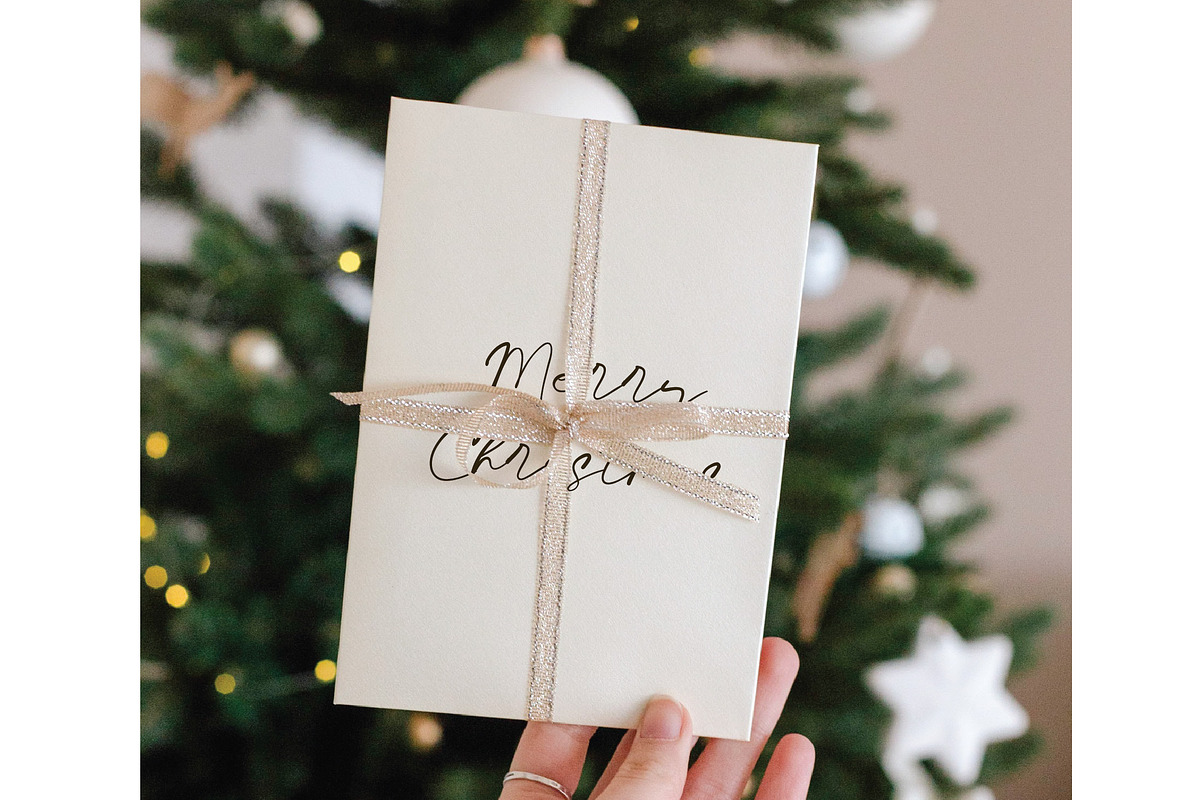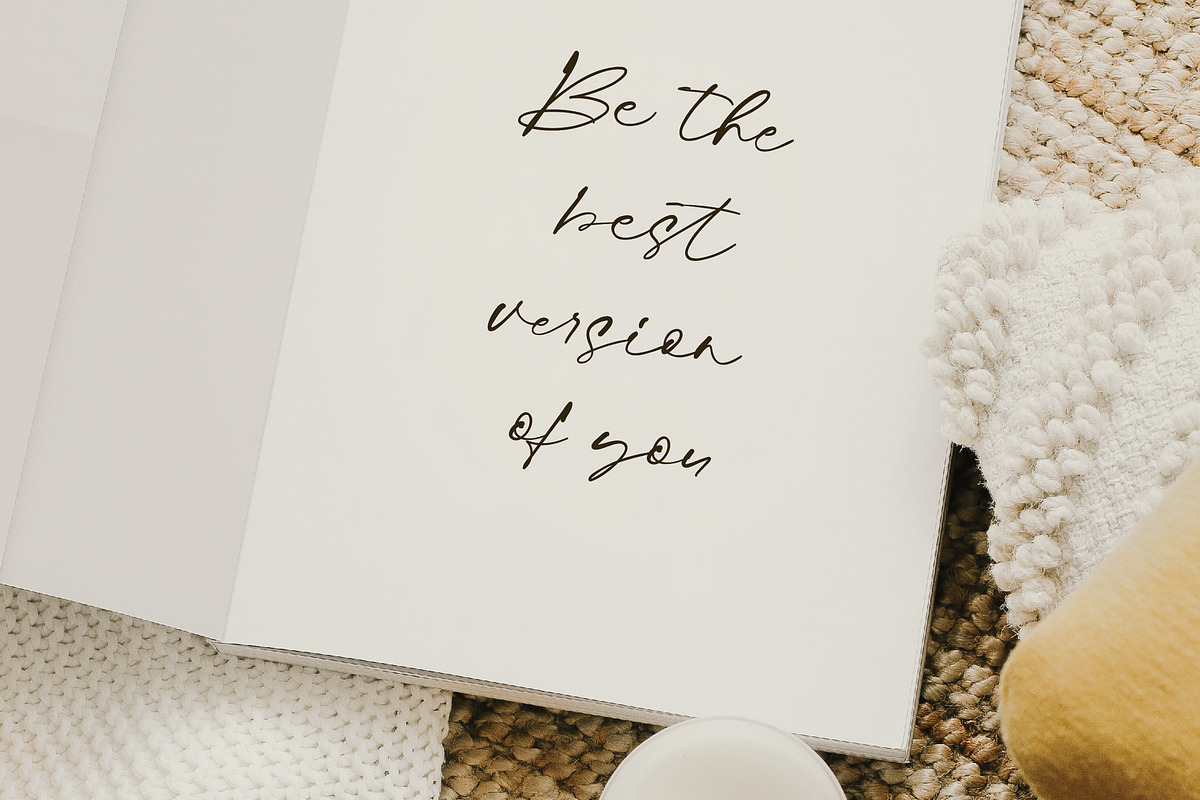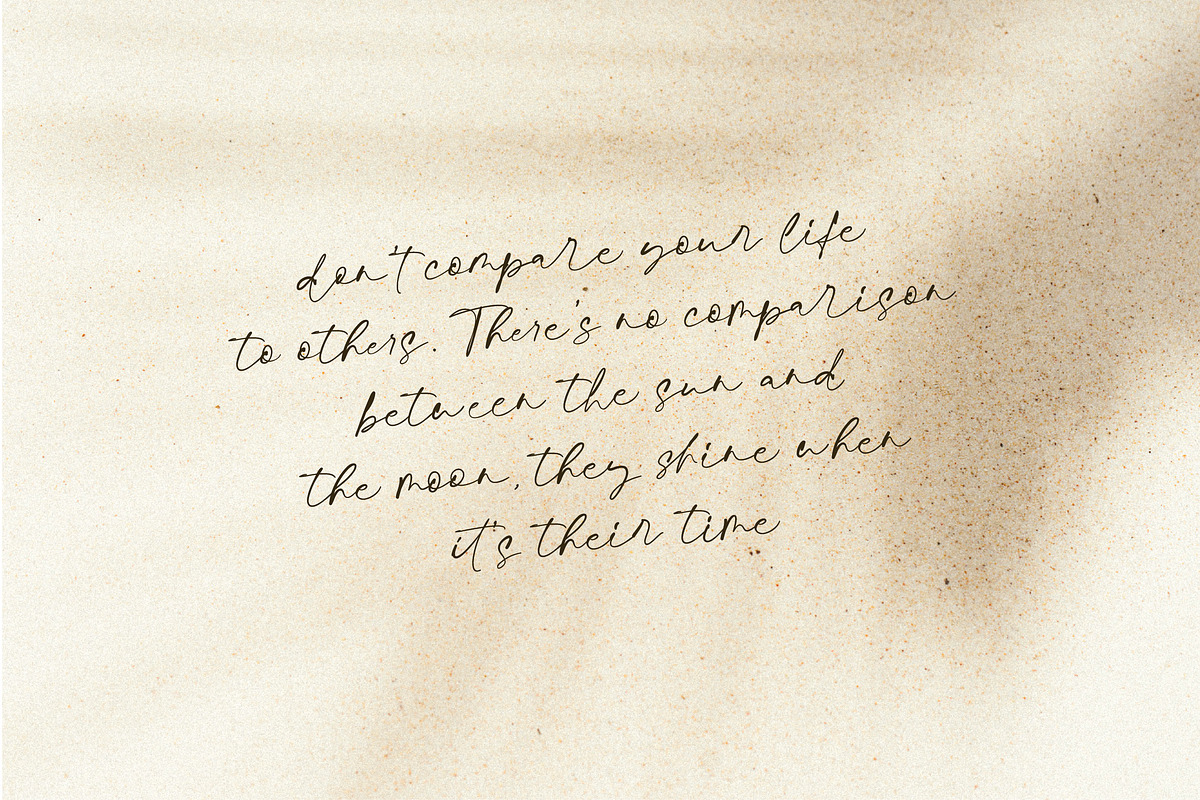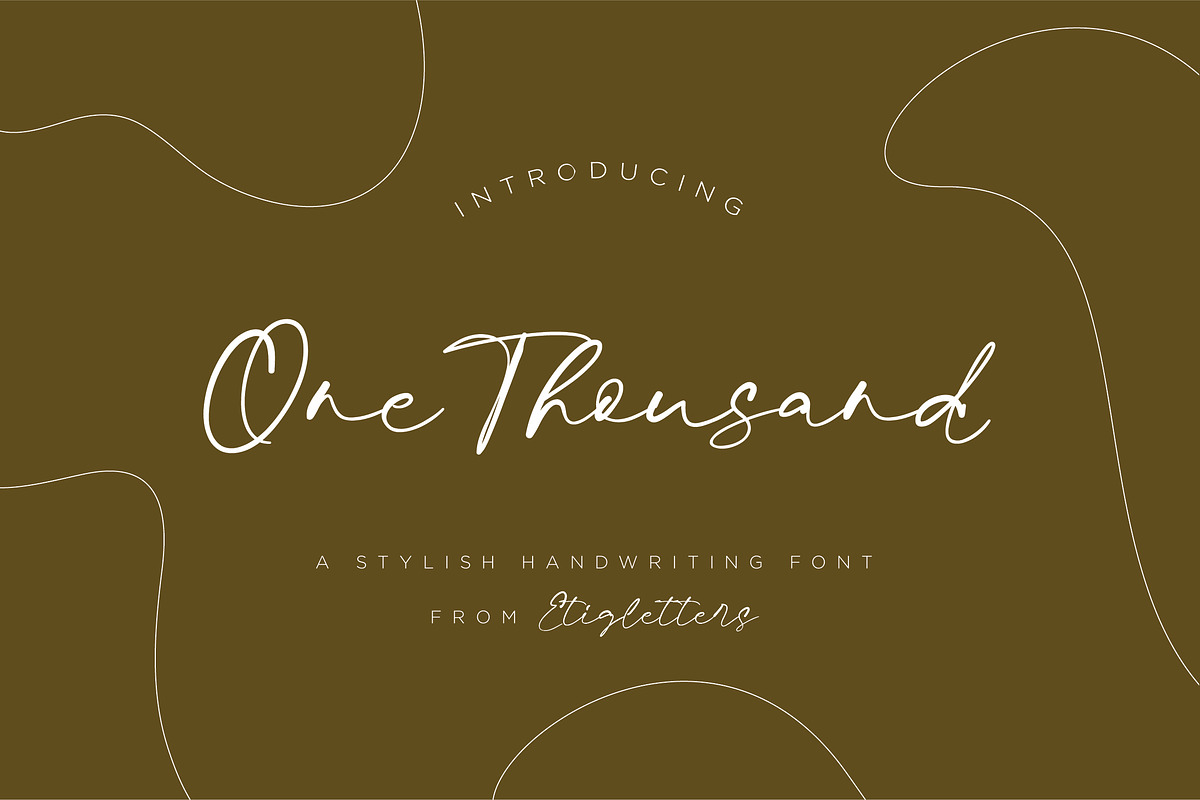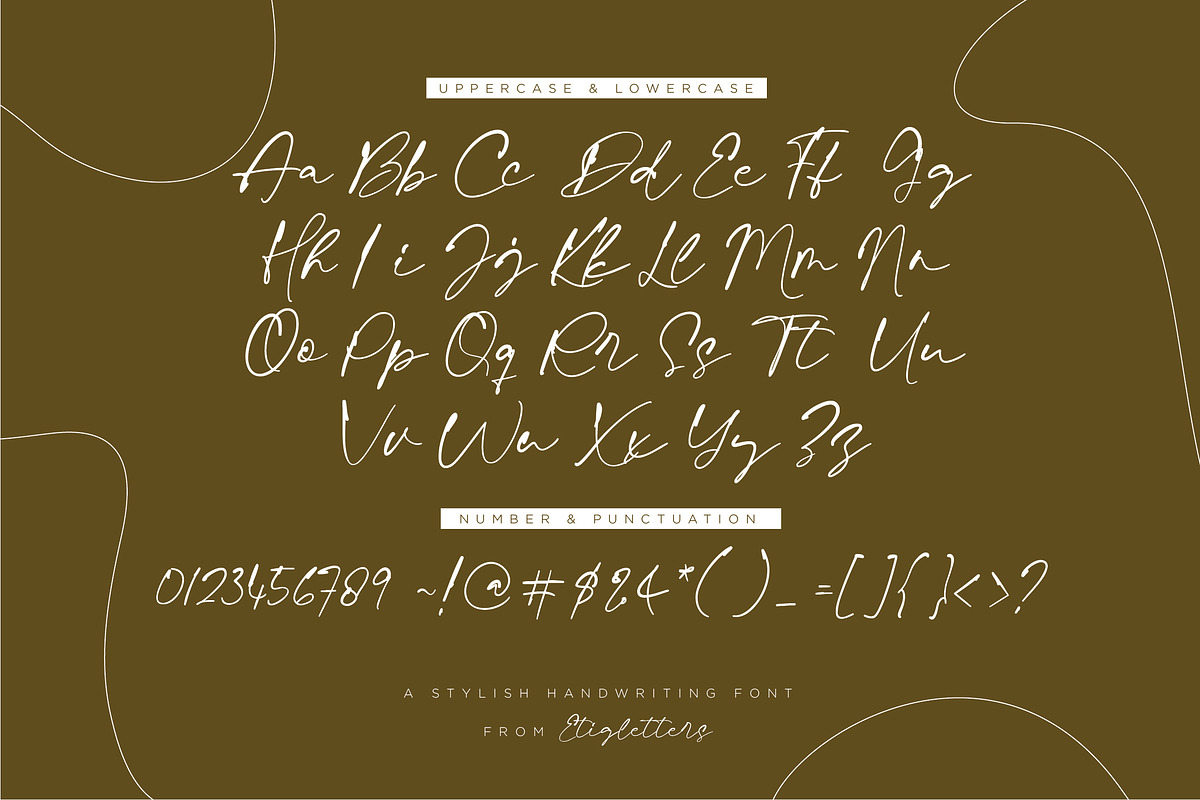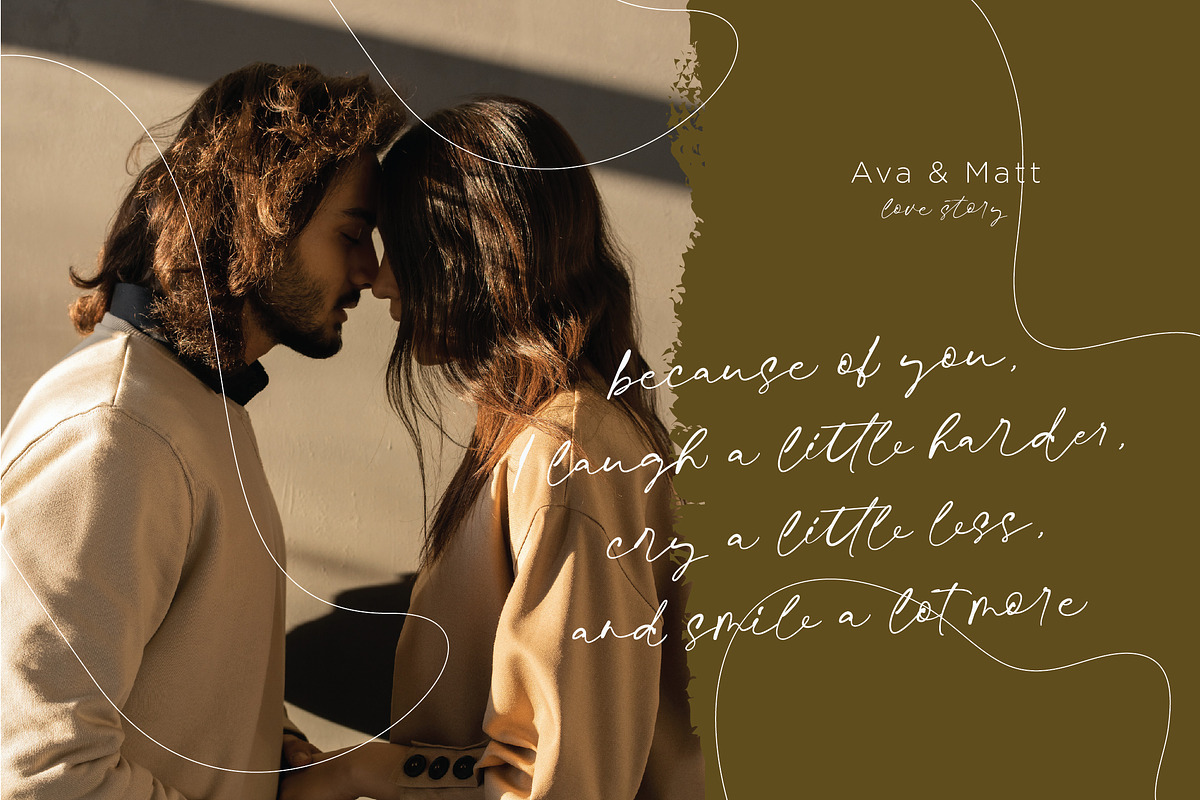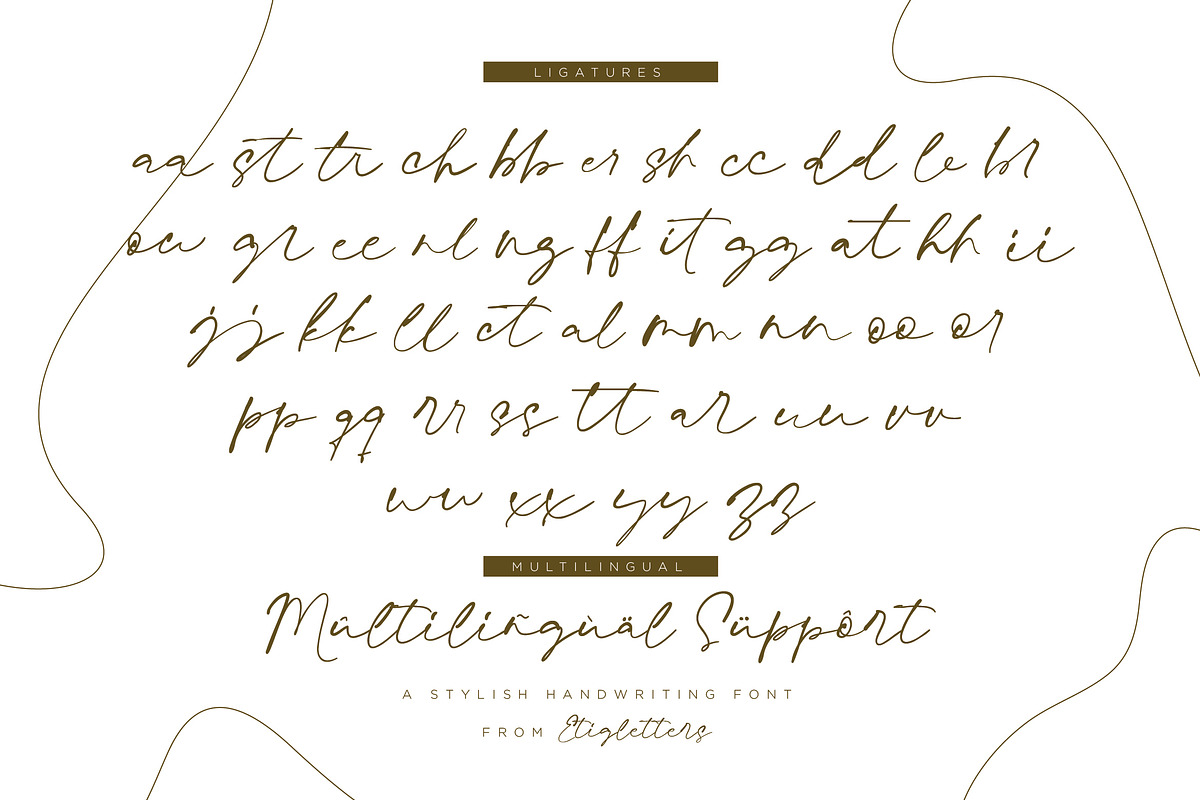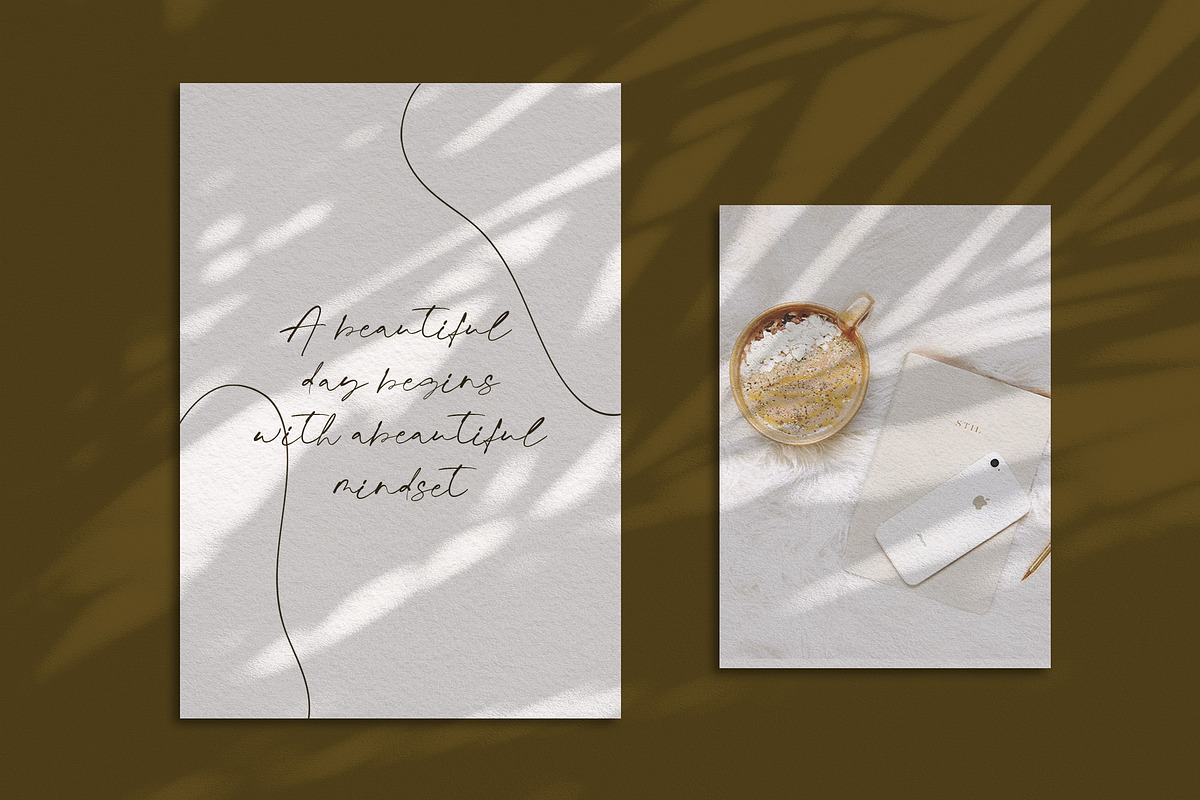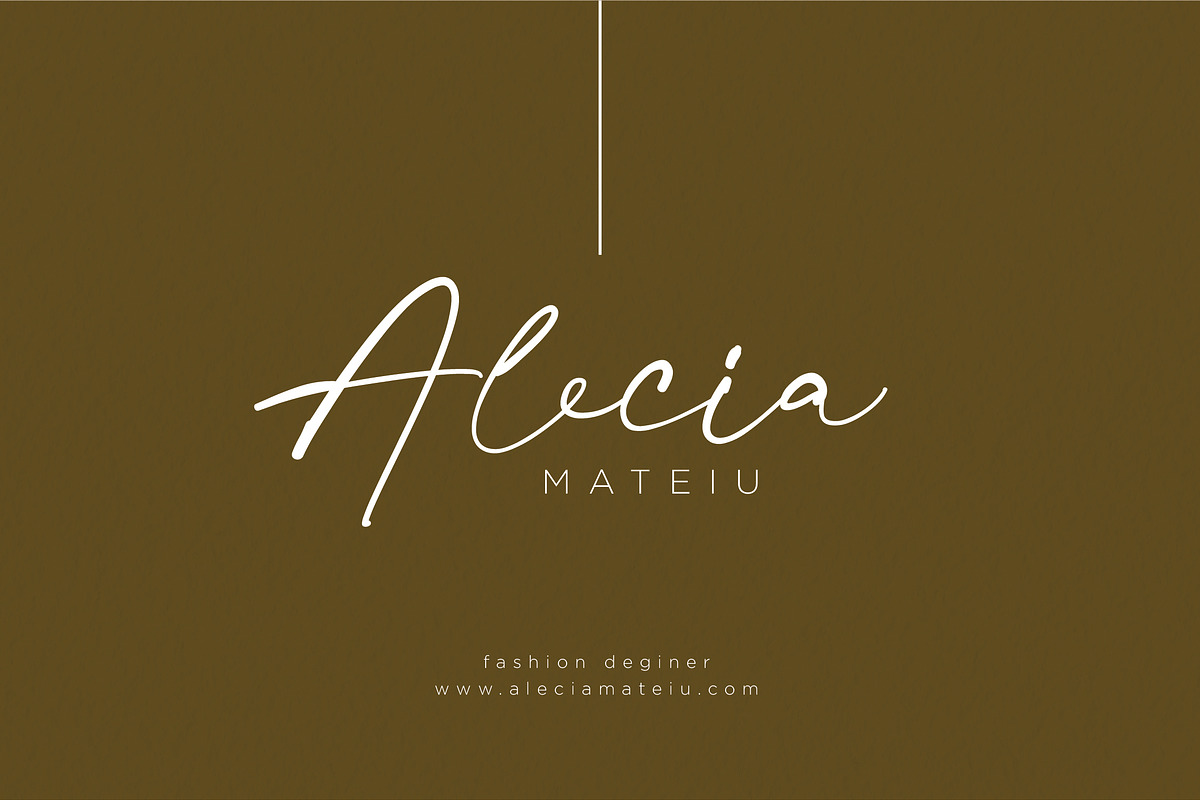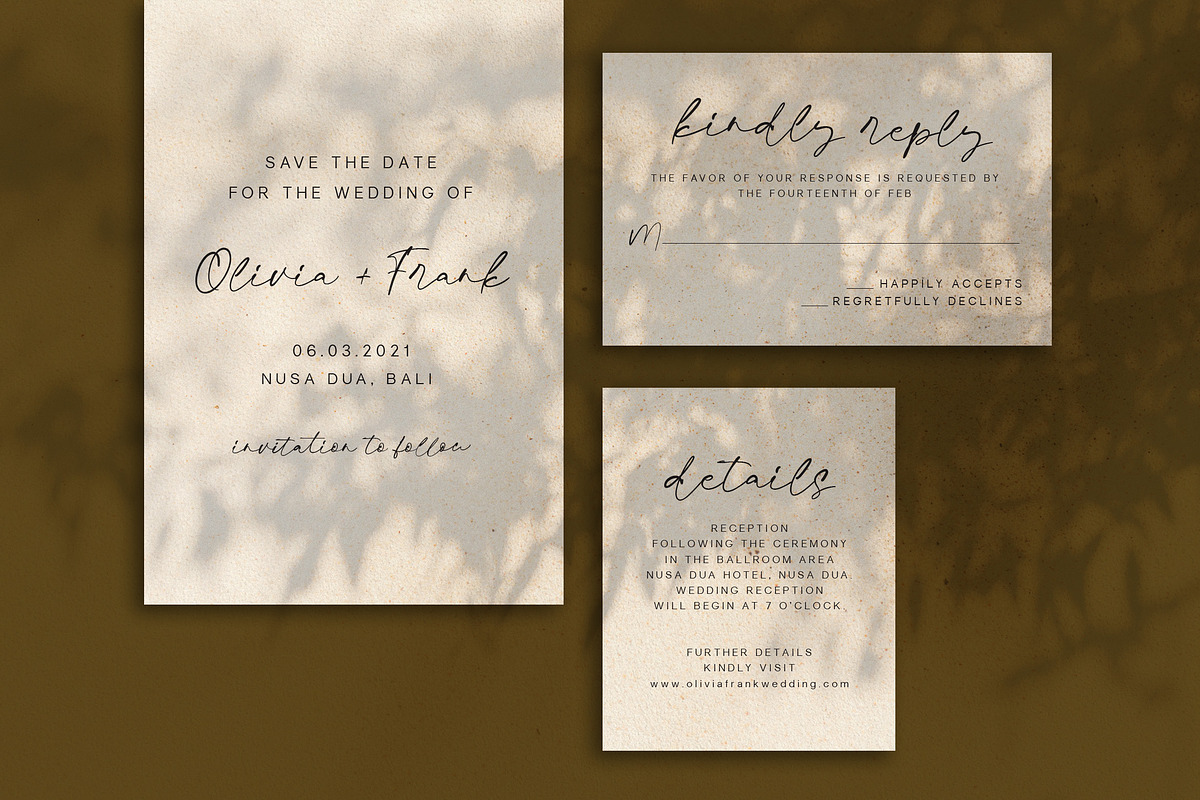
One Thousand Handwriting
Introducing One Thousand font is a handwriting font with a natural look and modern character. One Thousand can be used for various types of design needs such as branding materials, promotional flyers, social media templates, business cards, wedding stuff, quotes, and more.
One Thousand also includes a full set of gorgeous uppercase and lowercase letters, numerals, punctuations, and ligatures. One Thousand font also suitable to be combined with sans serif that will make your design more perfect. One Thousand is also support multilingual and already PUA Encoded!